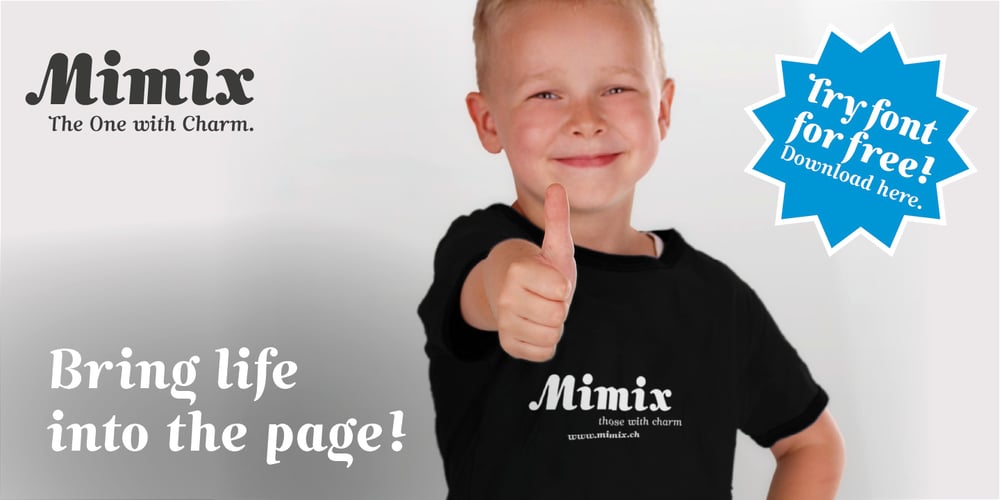
Mimix Font Family was designed by Filippo Salmina and published by FSdesign-Salmina. Mimix contains 12 styles and family package options. Mimix is designed especially for comic fans and all typographers who like to play. It’s ideal to express spontaneity and the joy of life. Where Mimix is used, there’s life. The characters are lined in a row, a face looks out from the page. Big ears surround an oval head. A mouse moves without haste, but dynamic and modern through the lines. Mimix skillfully combines the elegance of a modern roman with the spontaneity of a casual handwriting. The mouse shows its versatile character in its broad range of use. Without exaggeration, it’s always delicate and elegant. The quiet form and good readability is a result of its moderate inclination. Well developed, Mimix includes ten weights from Ultrathin through Black. The free trial pack includes two weights with a reduced number of glyphs. If you like it you will be then be able to buy the fonts itself complete with ligatures, special characters for Eastern European languages, uppercase, lining and old style figures as well as fractions and different Opentype features. Declare war on desert lead – with Mimix, those with charm. Download a free trial version of Mimix with a reduced character set. Check it out!